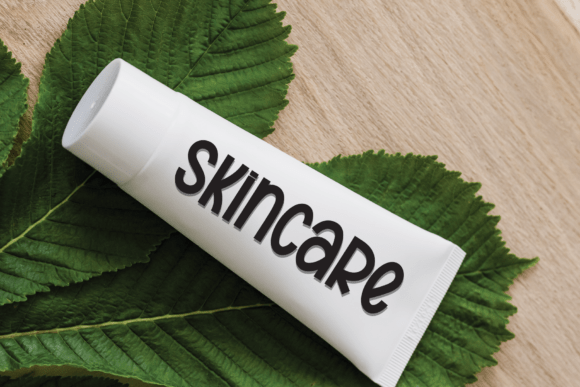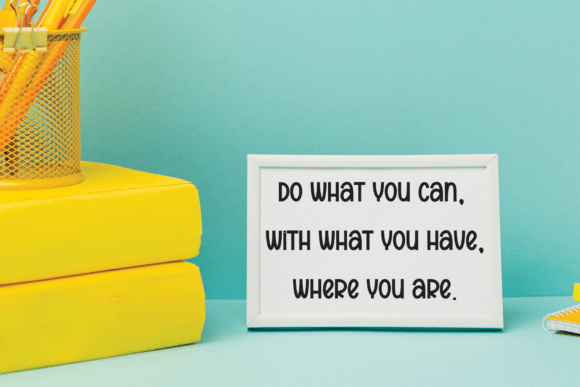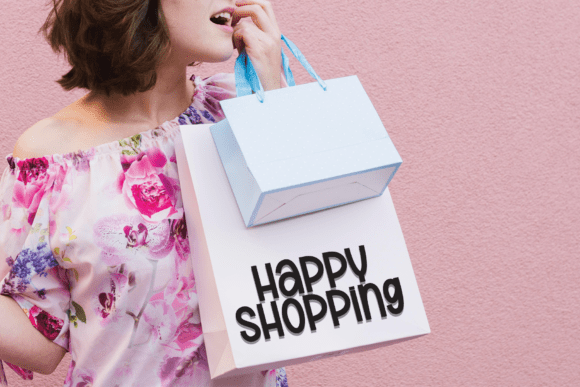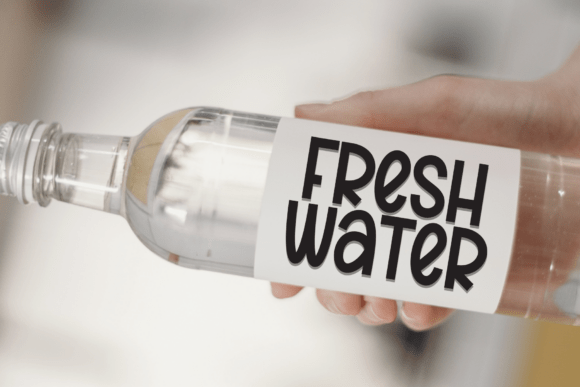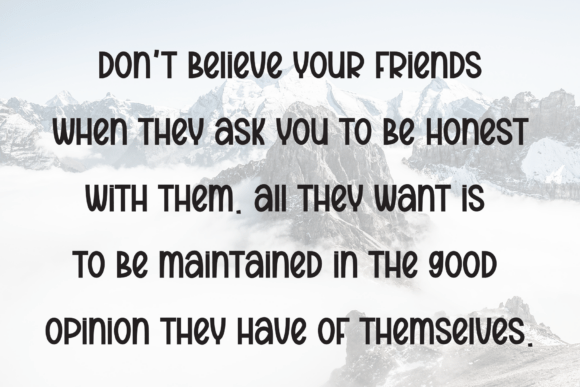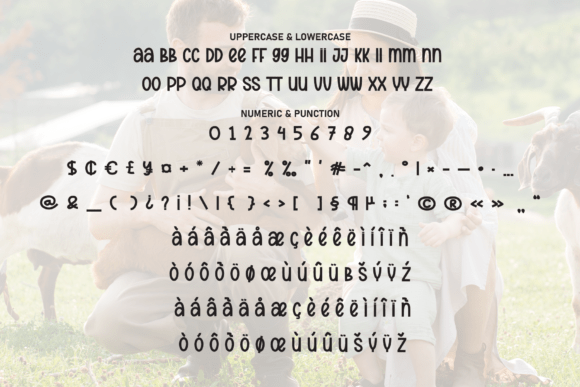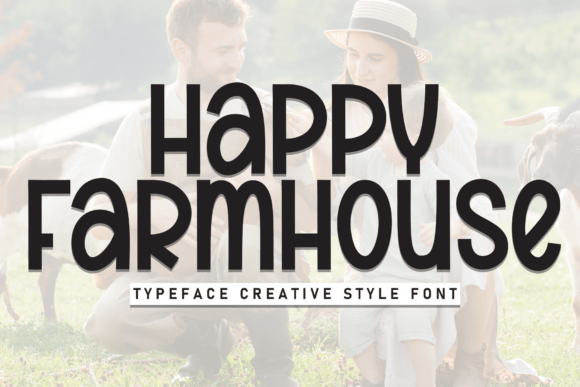
Introducing Happy Farmhouse Font: The Perfect Blend of Freshness and Friendliness
In the world of typography, fonts play a crucial role in conveying the tone and personality of a brand or design. For designers and crafters looking for a font that exudes a fresh, friendly vibe, Happy Farmhouse Font is an excellent choice. This casual and neat display font is designed to add a touch of charm and clarity to various projects, making it perfect for packaging, posters, social media graphics, and more.
Clean Lines and Relaxed Structure
One of the standout features of Happy Farmhouse Font is its clean lines and relaxed structure. The font’s design is characterized by simplicity and elegance, making it easy to read and understand. The clean lines ensure that the text is clear and legible, while the relaxed structure adds a touch of friendliness and approachability. This unique combination makes Happy Farmhouse Font an excellent choice for designers who want to create a warm and inviting atmosphere in their designs.
Happy Farmhouse Font is a versatile font that can be used in a variety of design projects. Its fresh and friendly vibe makes it perfect for:
- Packaging: Add a touch of charm to your product packaging with Happy Farmhouse Font. The font’s clean lines and relaxed structure make it easy to read and understand, even on small packaging labels.
- Posters: Create eye-catching posters with Happy Farmhouse Font. The font’s bold and playful design ensures that your message will stand out and grab attention.
- Social Media Graphics: Use Happy Farmhouse Font to create engaging social media graphics that will resonate with your audience. The font’s friendly vibe makes it perfect for creating a warm and inviting atmosphere on social media platforms.
Approachable Design with a Polished Appearance
Happy Farmhouse Font is designed to be approachable and charming, while maintaining a polished appearance. The font’s design is carefully crafted to ensure that it is easy to read and understand, making it perfect for designs that require a high level of legibility. The polished appearance of the font ensures that it will fit in seamlessly with professional designs, while the approachable design adds a touch of warmth and friendliness.
Happy Farmhouse Font offers a range of benefits for designers and crafters, including:
- Easy to read and understand: The font’s clean lines and relaxed structure make it easy to read and understand, even for small text sizes.
- Versatile: Happy Farmhouse Font can be used in a variety of design projects, from packaging to social media graphics.
- Fresh and friendly vibe: The font’s design exudes a fresh and friendly vibe, making it perfect for creating a warm and inviting atmosphere in designs.
- Polished appearance: The font’s polished appearance ensures that it will fit in seamlessly with professional designs.
In conclusion, Happy Farmhouse Font is an excellent choice for designers and crafters looking for a font that exudes a fresh, friendly vibe. With its clean lines, relaxed structure, and approachable design, this font is perfect for a variety of design projects, from packaging to social media graphics. Whether you’re looking to create a warm and inviting atmosphere or add a touch of charm to your designs, Happy Farmhouse Font is a versatile and effective choice.